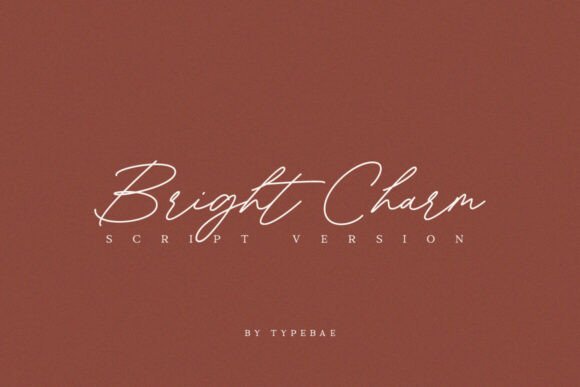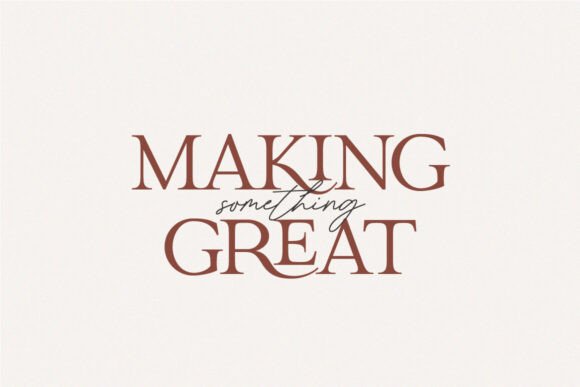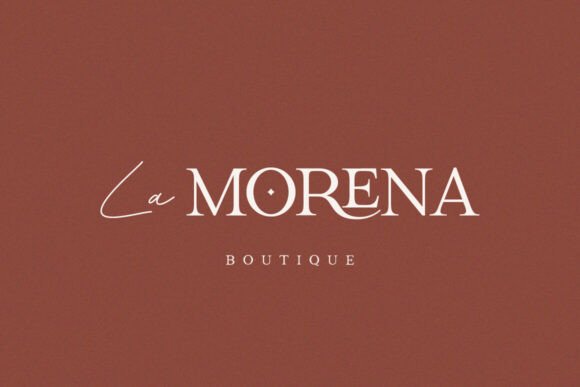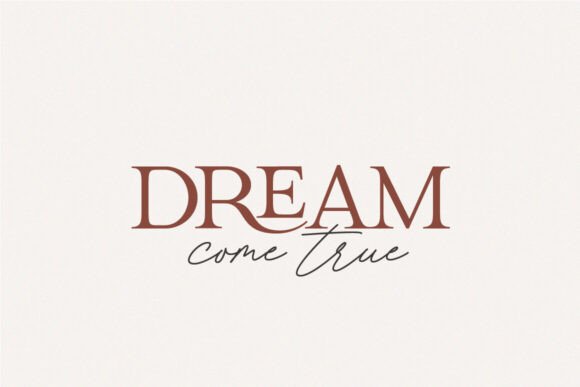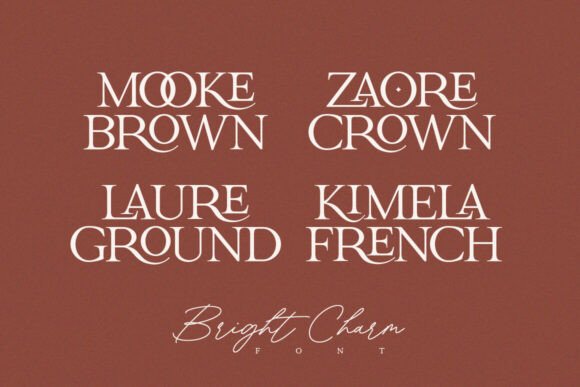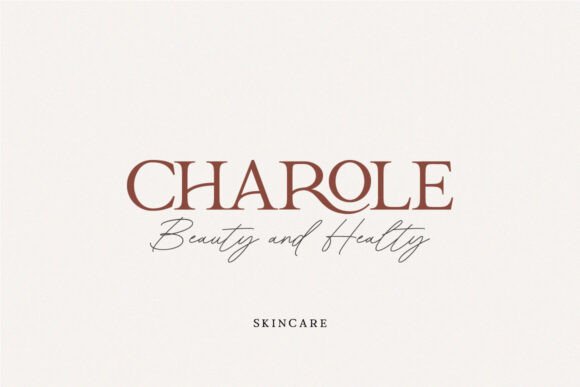
The Perfect Font Duo for Your Next Creative Project
Have you ever stared at a blank page, trying to bring a design to life? You know, that moment when everything seems to be falling into place, and all you need is the right font to tie it all together. For many designers, finding that elusive perfect font can be a challenge. But what if I told you there’s a solution that can elevate your designs and leave a lasting impression?
Enter Bright Charm Font, a stunning duo that combines the elegance of a refined serif with the sophistication of a gracious script. This versatile font is designed to add a touch of luxury to any project, whether it’s a classic logo, a modern invitation, or a social media post. With its extensive ligature library, Bright Charm Font ensures smooth, natural letter connections that will leave your audience in awe. For designers, this font is a valuable asset that can take their creative projects to the next level.
Bright Charm Font Key Features
- Unique Characteristics: Bright Charm Font features a unique blend of modern and elegant design elements, with intricate details and ornate flourishes.
- Style Variations: Includes 6 different font styles: Regular, Italic, Bold, Bold Italic, Outline, and Shadow
Bright Charm Font Review
✨ I must say, I’m a big fan of the Bright Charm Font’s playful and whimsical feel. It’s perfect for projects that need a touch of magic and wonder. The font’s unique characters, such as the swashes and flourishes, add a delightful touch of personality to any design.
✨ The font’s OpenType features are also a plus, offering a wide range of styling options that allow for a high degree of customization. This makes it a great choice for designers who want to add a bit of flair to their work without having to worry about compatibility issues.
⚠️ One potential drawback of the Bright Charm Font is its limited legibility at smaller font sizes. While it looks stunning at larger sizes, it can become quite difficult to read when scaled down. This might be a problem for designers who need to use the font for body text or other smaller text elements.
⚠️ Another limitation is the font’s relatively limited language support. While it includes a wide range of Western languages, it may not be suitable for projects that require support for non-Latin scripts.
The Bright Charm Font is a charming and versatile font that’s perfect for designers who want to add a touch of magic to their work. While it may have some limitations, its unique character and styling options make it a great choice for a wide range of projects.
- Unique characters and swashes
- OpenType features for high degree of customization
- Playful and whimsical feel
- Limited legibility at smaller font sizes
- Limited language support
For best results, use the Bright Charm Font for headings and titles, as it’s particularly well-suited for bold and eye-catching text.
For best results, use the Bright Charm Font for headings, titles, and other text elements that require a touch of elegance and sophistication.
The Bright Charm Font is particularly well-suited for:
– Luxury brand marketing materials
– High-end product packaging and labeling
– Elegant business cards and letterheads
Remember to use the Bright Charm Font sparingly and thoughtfully to maximize its impact and effectiveness.